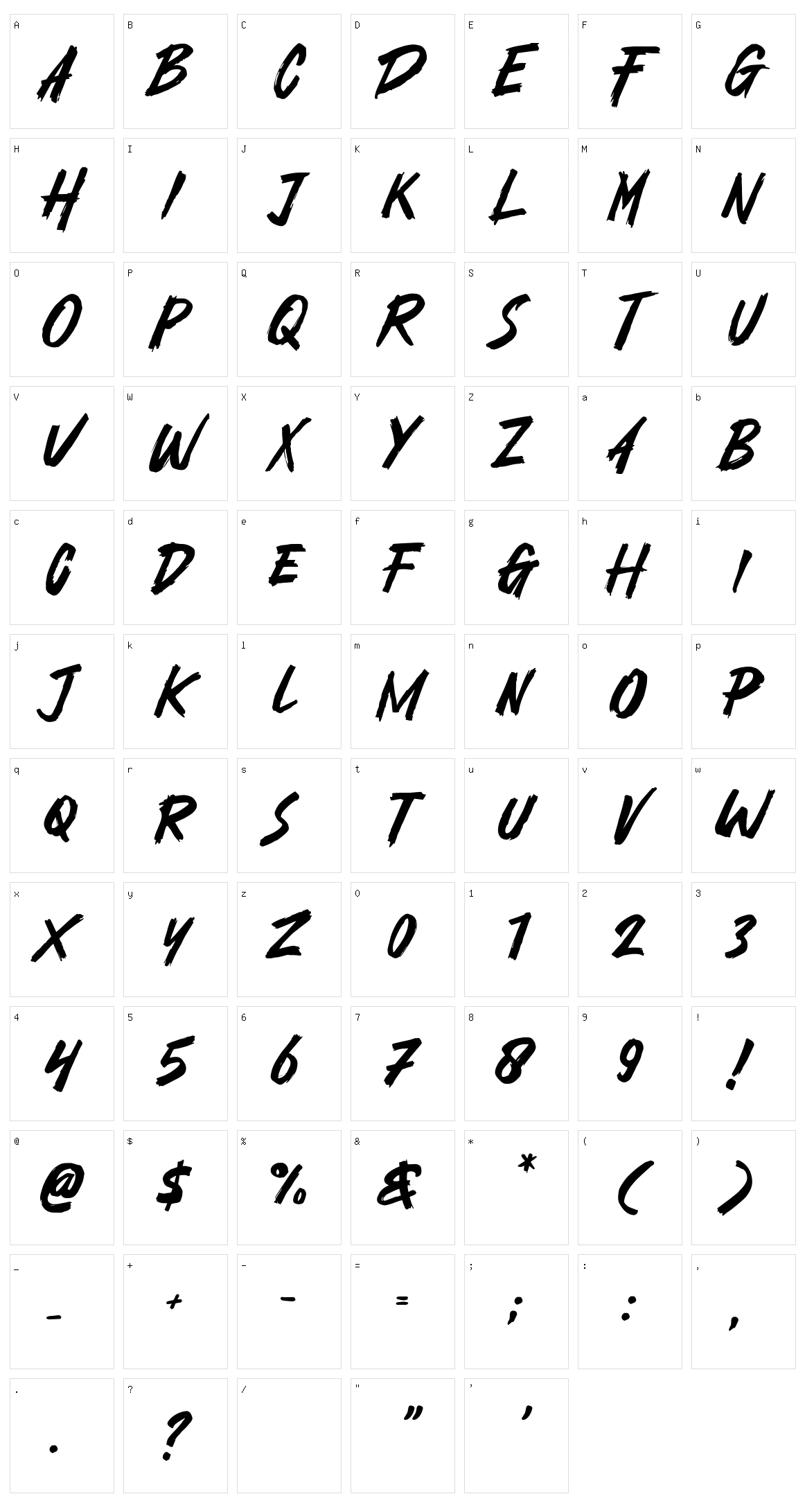
The free font Dark Distance is carefully designed by Khurasan, showcasing a thoughtful balance of creativity and usability and falls under the Horror font style. When you download the ZIP file, it contains only 648.94 KB of font files, making it lightweight and quick to download. Please review the license details below to understand permitted usage and distribution rights. If license information is not available, we recommend using this font for personal projects only or contacting the author directly for commercial usage permissions.